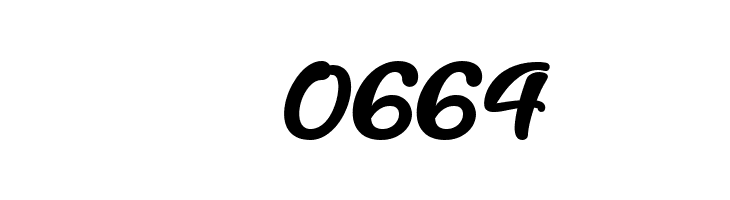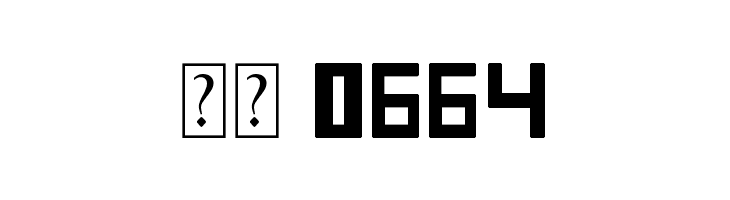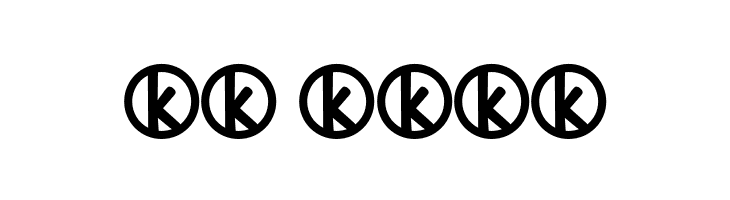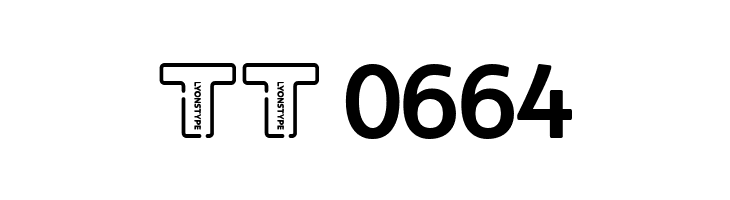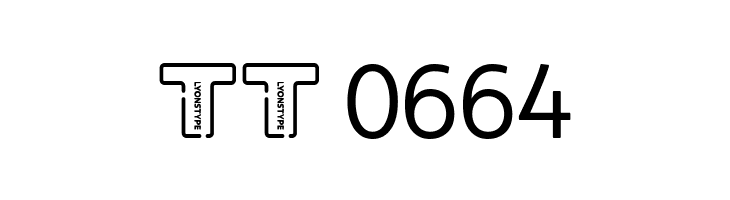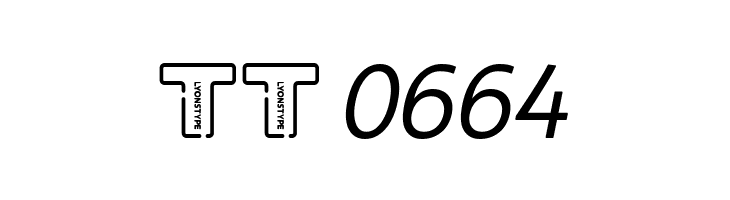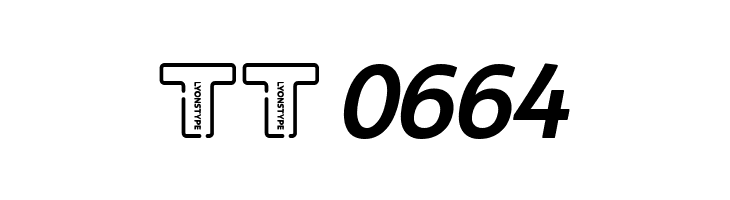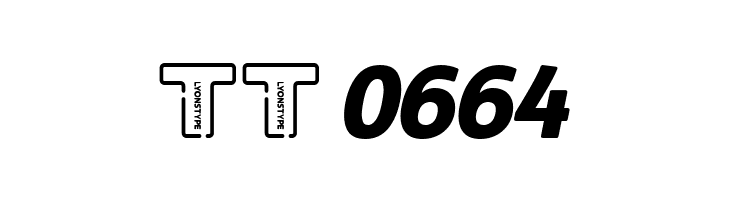
A romantic script font with heart motifs and a whimsical, flowing style.
A modern, geometric sans-serif font with clean lines and balanced proportions.
A bold, handwritten-style font with a playful and dynamic appearance.
A bold, playful handwritten font with thick strokes and rounded edges.
A charming and elegant script font with fluid, connected letterforms.
An elegant script font with flowing, ornate cursive letters and intricate swashes.
A modern, elegant script font with flowing cursive letters and graceful swashes.
An artistic outline font with bold, geometric uppercase and softer lowercase letters.
A lively and expressive script font with flowing, cursive letterforms and dynamic stroke variations.
A bold, modern sans-serif font with clean lines and balanced spacing.
A bold and italic font with a modern, dynamic style.
A bold, robust font with thick strokes and strong presence.
A bold, italic font with dynamic and energetic styling.
A modern, italicized font with clean lines and balanced proportions.
A modern, clean sans-serif font with a sleek and minimalistic design.
A sleek, modern, light italic font with smooth strokes and low contrast.
A playful, hand-drawn font with a whimsical and artistic style.
A modern italic font with clean lines and a dynamic slant.
A sleek, modern font with clean lines and a minimalist aesthetic.
A sleek, light, and italicized font with a modern and elegant style.
A collection of decorative and ornate symbols with vintage and edgy themes.
A bold, gothic font with decorative elements like spider webs and bats, perfect for spooky themes.
A geometric and modern font with angular lines and sharp edges.
A playful and bold font with whimsical, fish-shaped characters.
A playful, bold font with rounded edges and a hand-drawn appearance.
A bold, playful script font with flowing, cursive letterforms.
A playful, handwritten font with bold, rounded strokes and a casual, informal style.
A playful, casual handwritten font with an informal and whimsical style.
An elegant, flowing script font with interconnected, graceful strokes.
A graceful, slanted script font with smooth, flowing letterforms.
A delicate, cursive script font with flowing, interconnected strokes and elegant flourishes.
A bold, cursive font with a playful and flowing script style.
An elegant, flowing script font with graceful loops and cursive strokes.